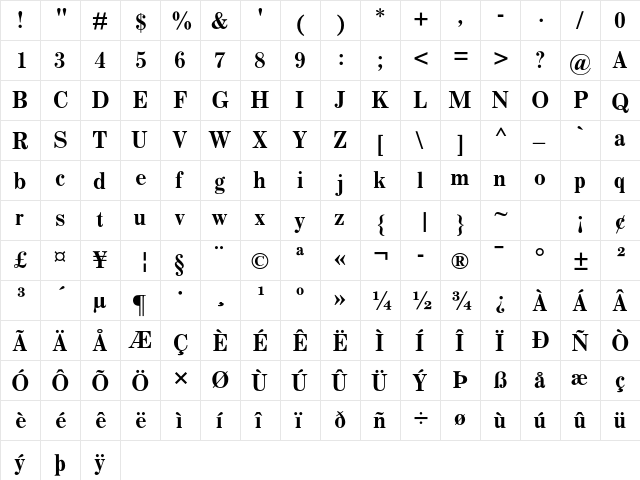
Century Std MT Bold Font Preview
Century Std MT Bold
Design Context for Century Std MT Typeface
Century Std MT takes a measured approach to typography — its balanced proportions and neutral character make it a reliable workhorse for both digital and print work. The heavy weight commands attention and anchors typographic hierarchies.